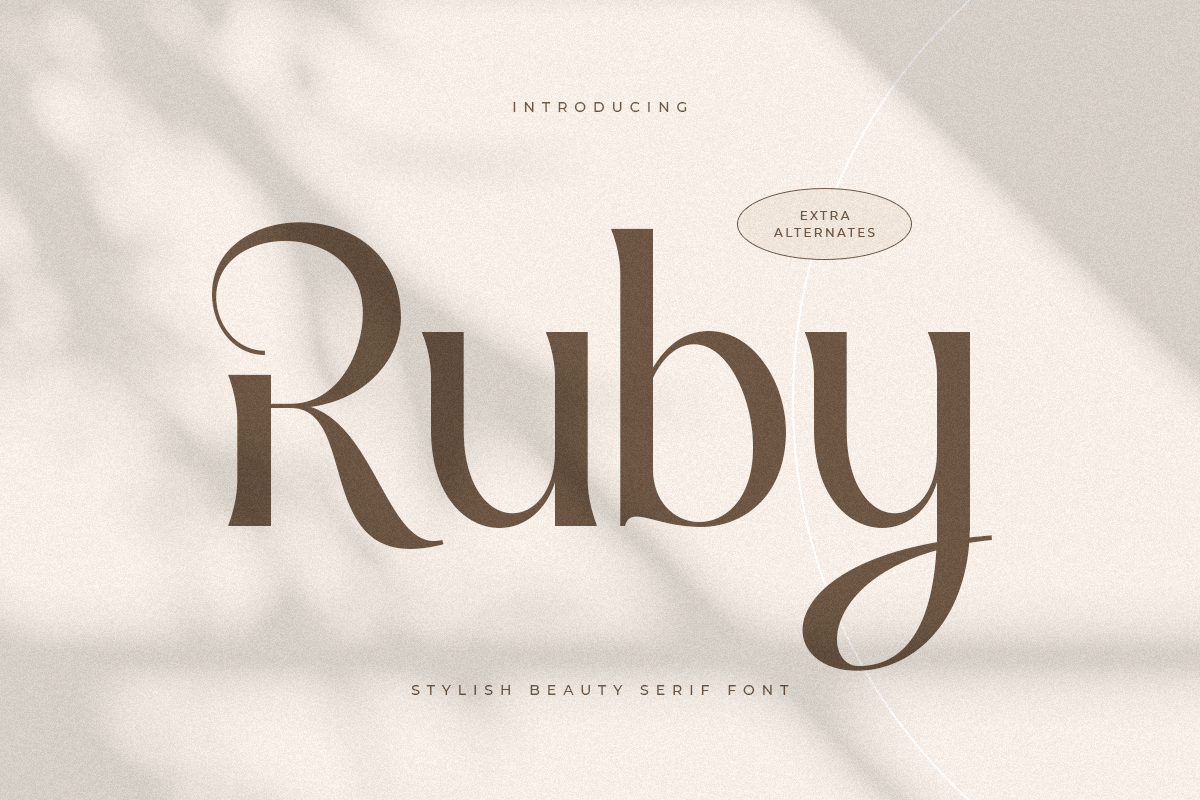
Ruby
-Stylish Beauty Serif Font
Ruby
Ruby is a Stylish Beeaty Serif Font
In a new generations, we analyze that any designer or brand owner need to make their brand standout. As our focus that analyze any typeface that helps to leverage any logo design to look more modern and unique. We prepared this font with any unique characters to help you create unlimited variations for your creative needs.